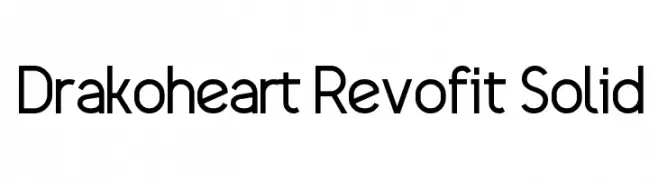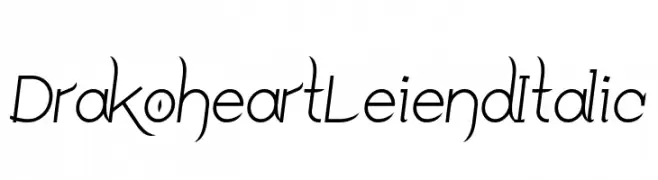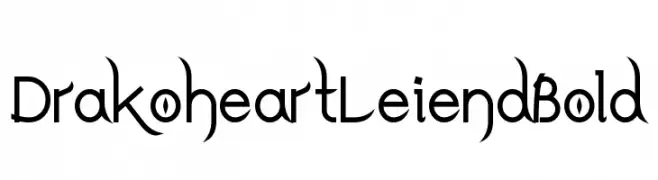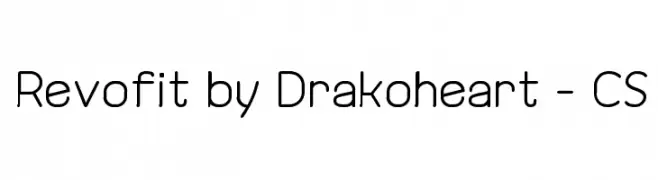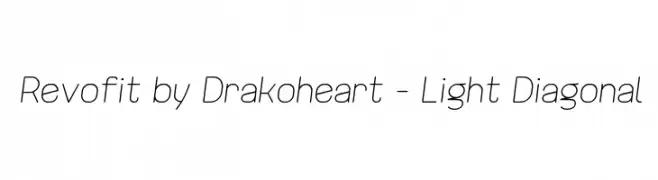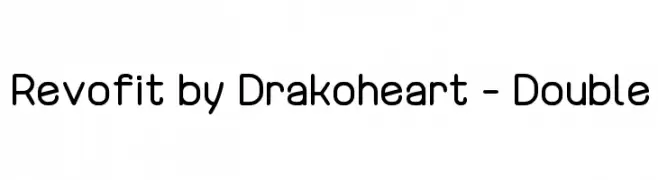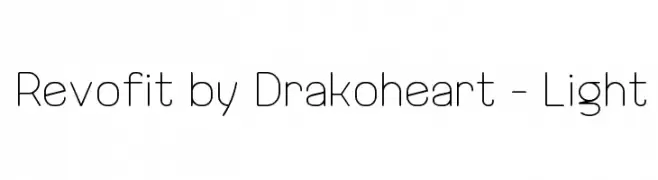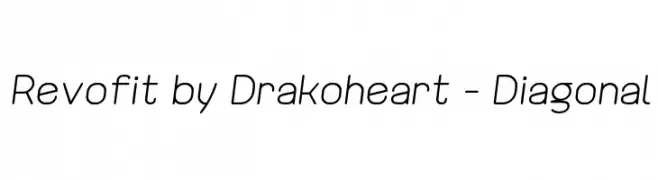
A modern, geometric sans-serif font with clean lines and balanced proportions.
A modern, artistic font with elegant curves and a slight italic slant.
A bold and italicized font with dynamic curves and sharp angles.
A modern decorative font with elegant curves and sharp angles.
A bold, artistic font with sharp angles and smooth curves, perfect for creative projects.
A modern, rounded font with a clean and approachable design.
A modern, light, and diagonally slanted font with smooth strokes.
A modern, rounded sans-serif font with uniform stroke width and excellent readability.
A modern, light sans-serif font with clean lines and excellent readability.
A sleek, modern font with a diagonal slant and rounded edges.